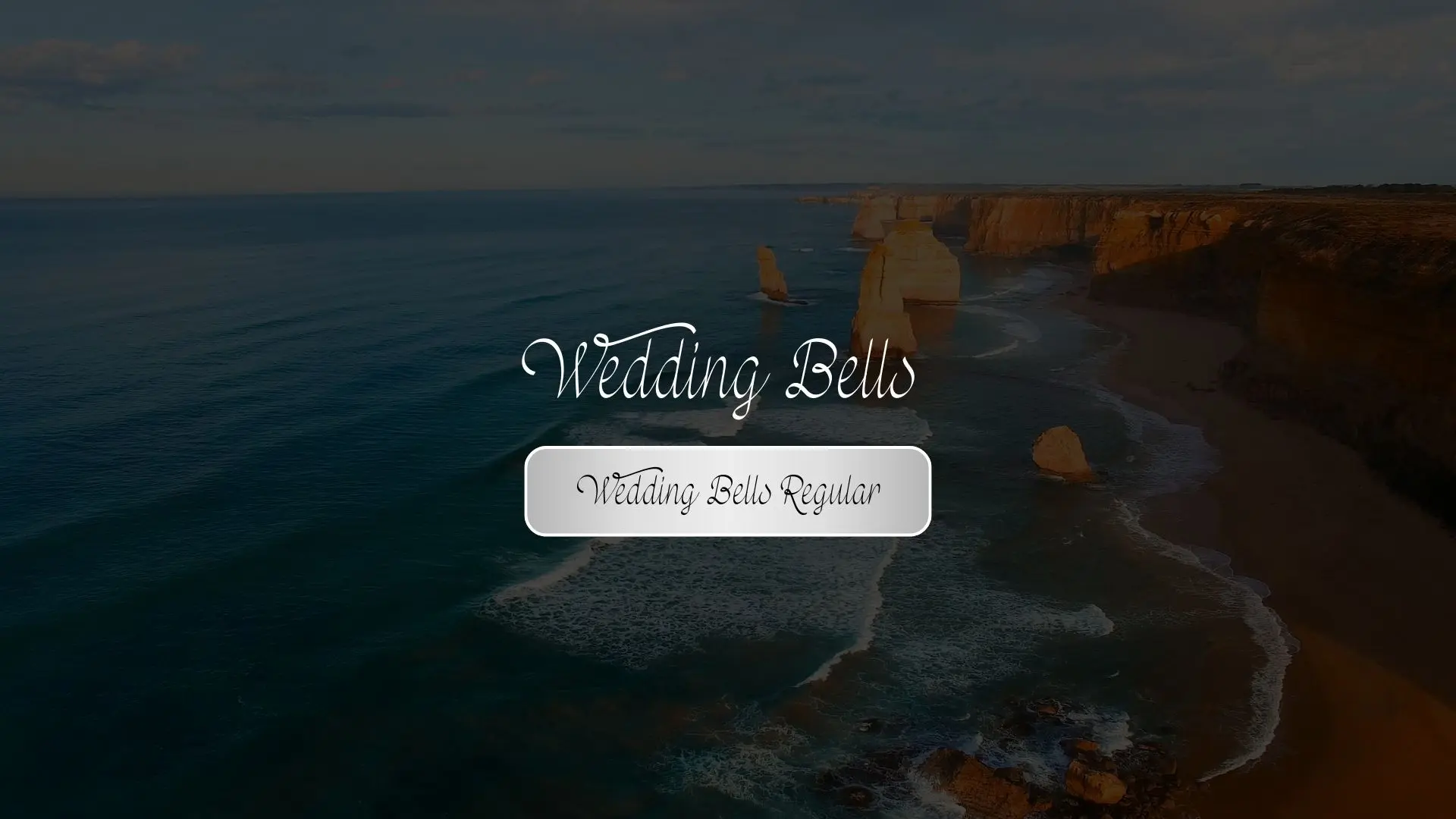
The font Wedding Bells Regular, designed by Misti's Fonts, falls under the Script category & Wedding Bells font family. Its smooth, flowing letterforms make it a versatile choice for projects that require both elegance and readability. Wedding Bells is particularly well-suited for Display, Greeting Cards, Branding for Romantic, Short Text, Event Stationery and Luxury Goods. With its balance of simplicity and decorative appeal, this font brings a polished touch to both personal and professional designs.